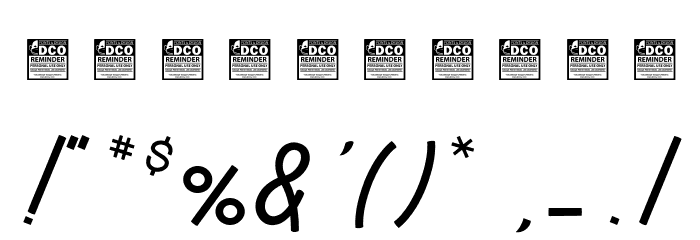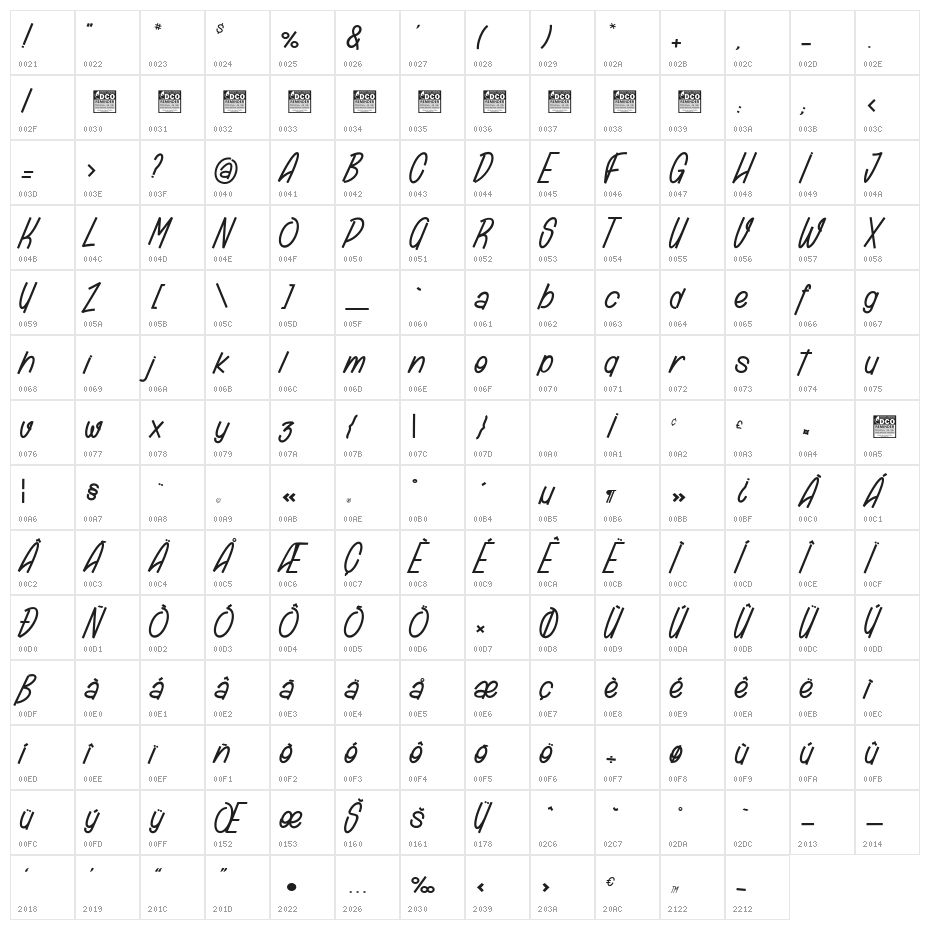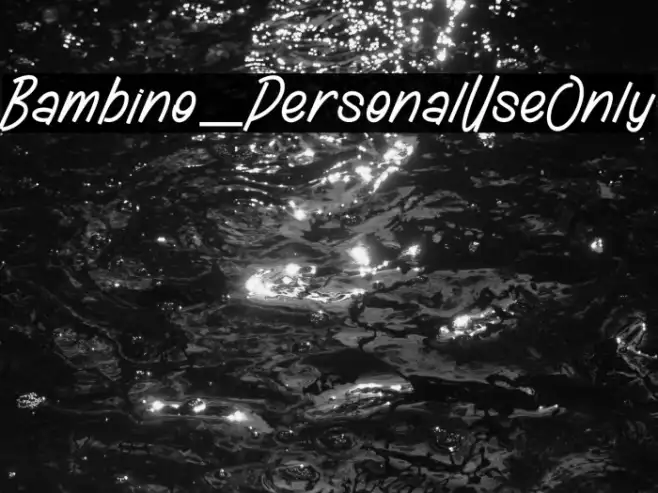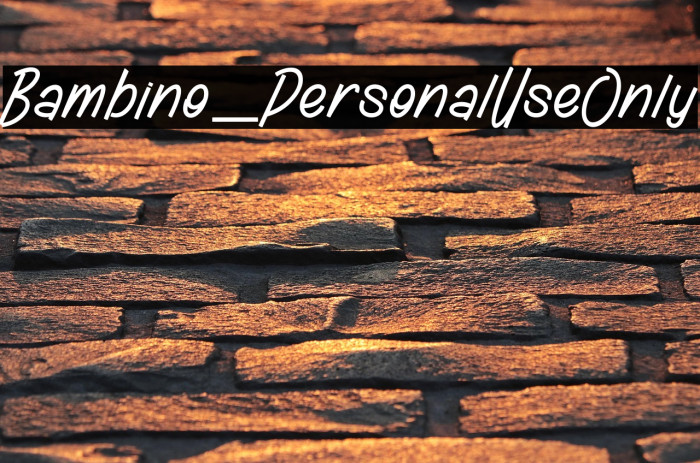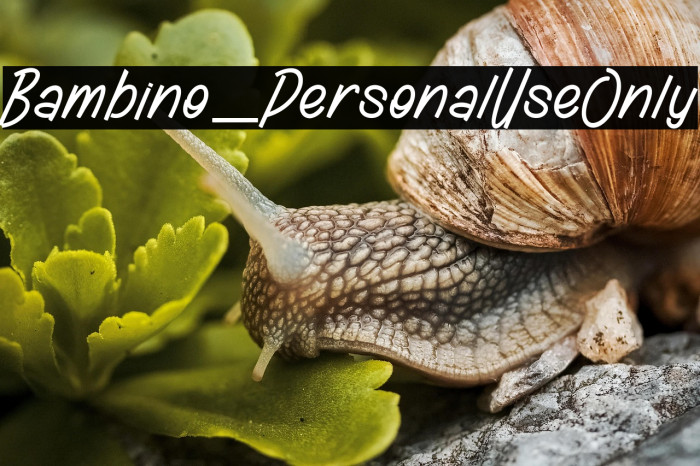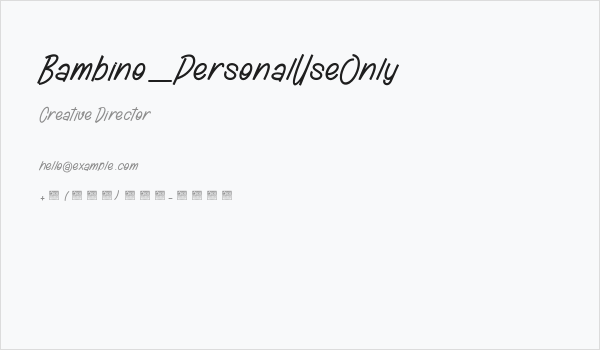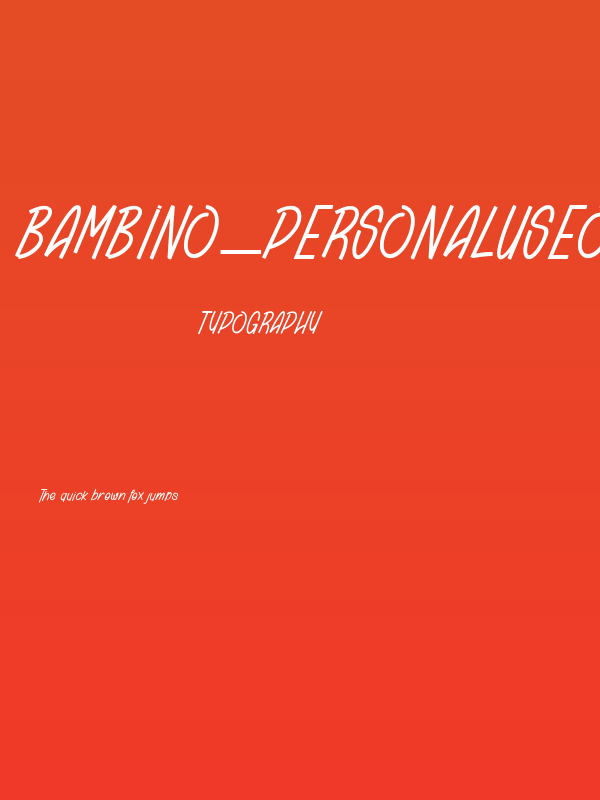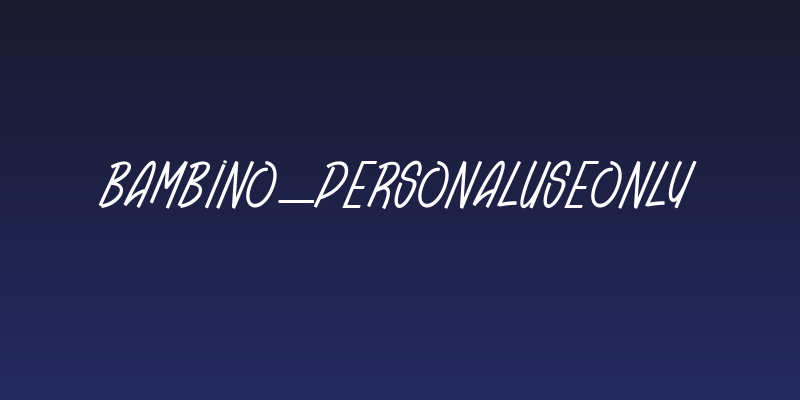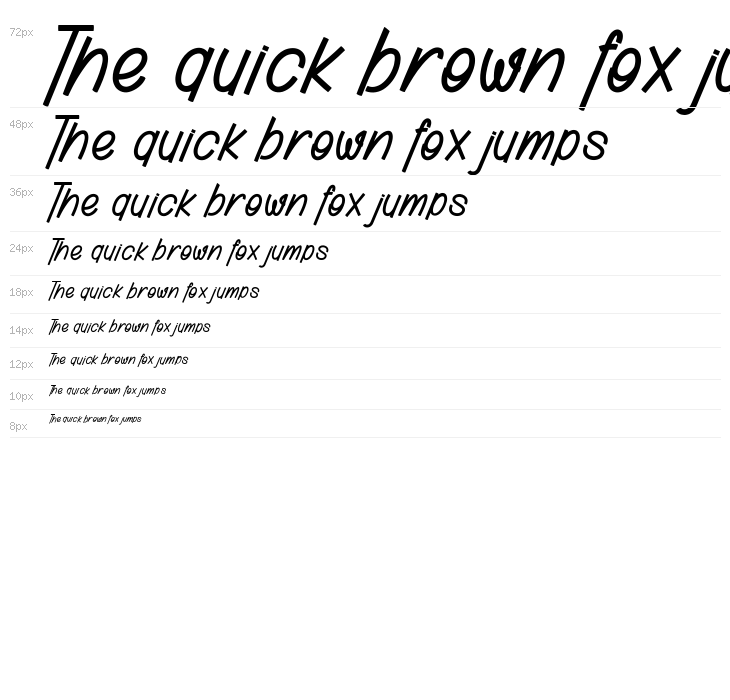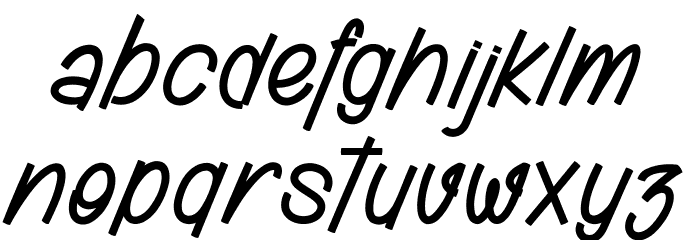
Bambino_PersonalUseOnly Font
Bambino_PersonalUseOnly Description
This font features a playful and dynamic handwritten style, characterized by its slanted and slightly irregular letterforms. The uppercase letters are tall and narrow, with a consistent slant that adds a sense of movement and energy. The lowercase letters maintain this slant, with rounded edges that contribute to a friendly and approachable appearance. The numerals and special characters follow the same stylistic cues, ensuring a cohesive look across all text. The overall design is casual yet stylish, making it suitable for projects that require a personal touch. The font's unique character is further enhanced by its medium contrast in stroke thickness, which adds depth and interest without compromising readability.
| Proposed Projects | Ideal for greeting cards, invitations, personal branding, and creative projects that benefit from a handwritten touch. |